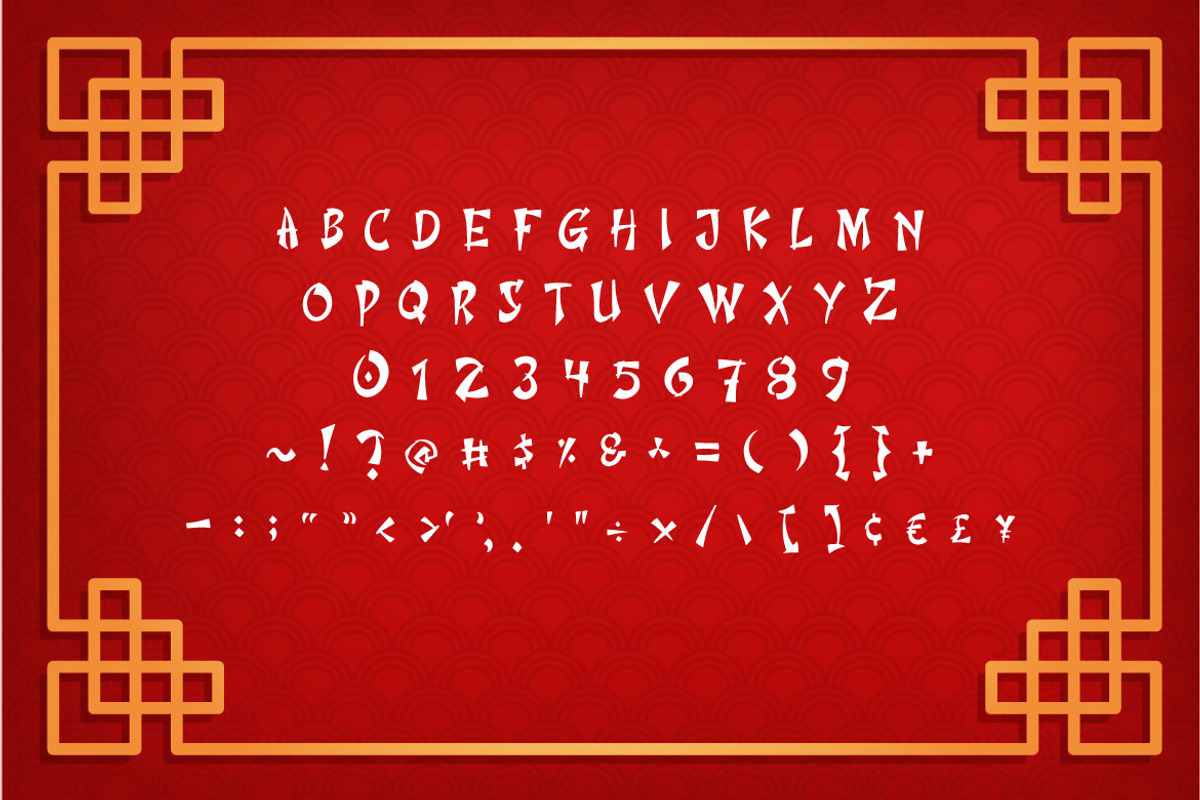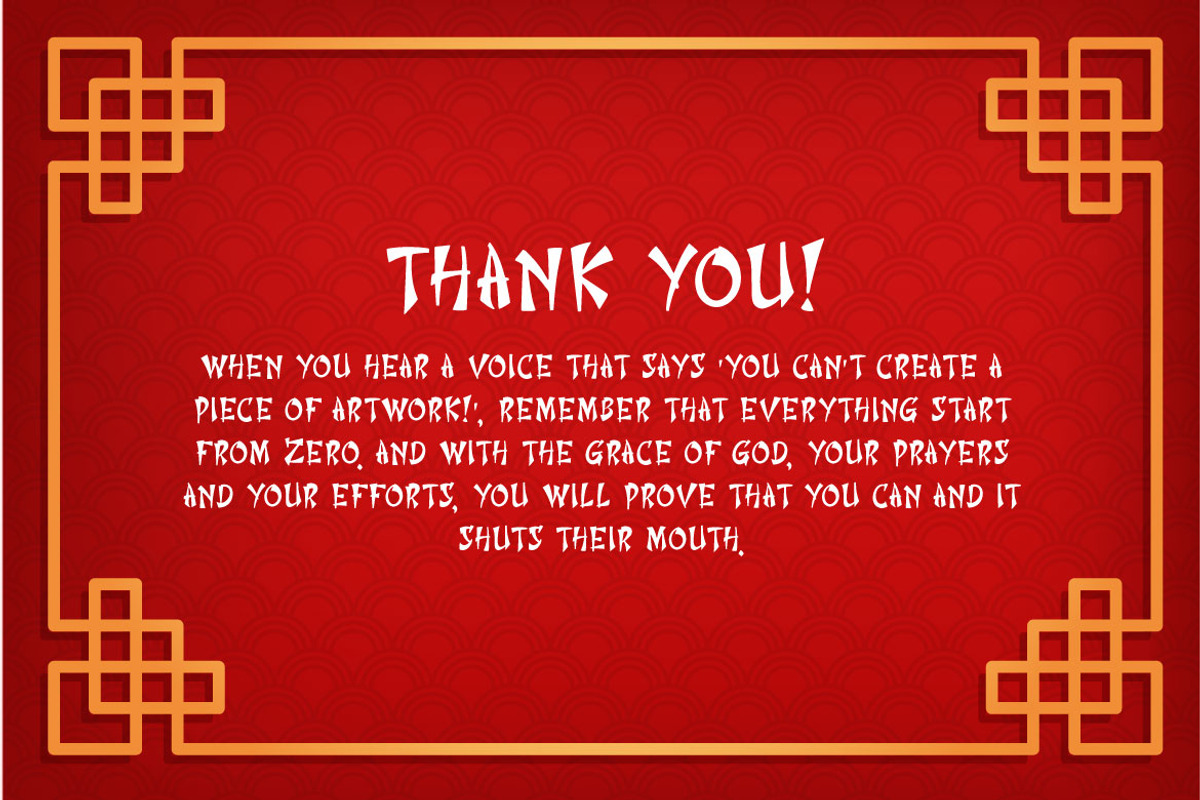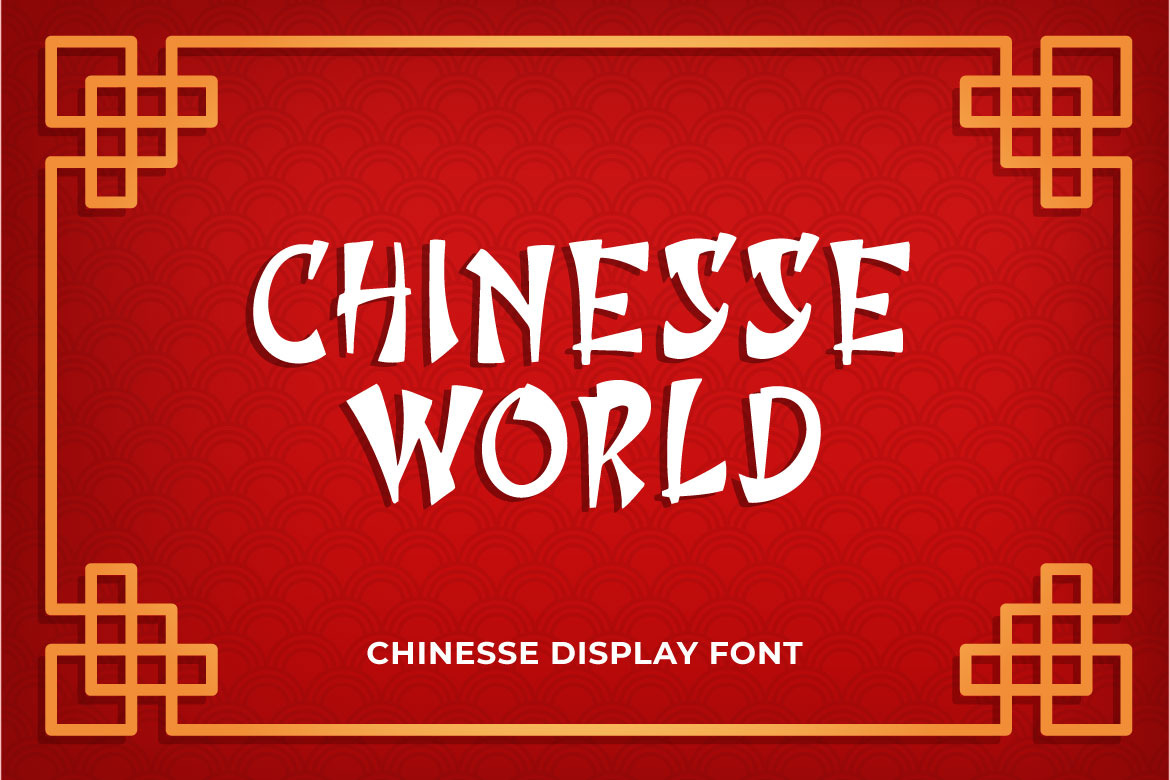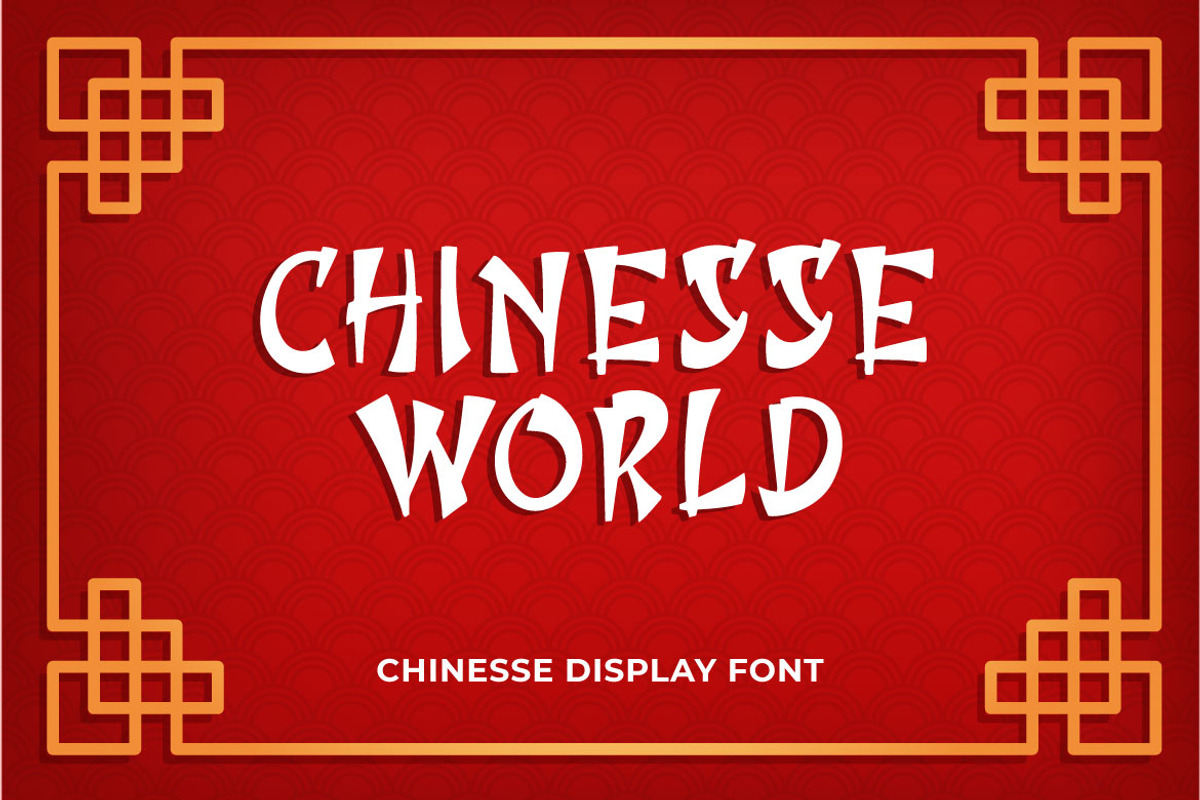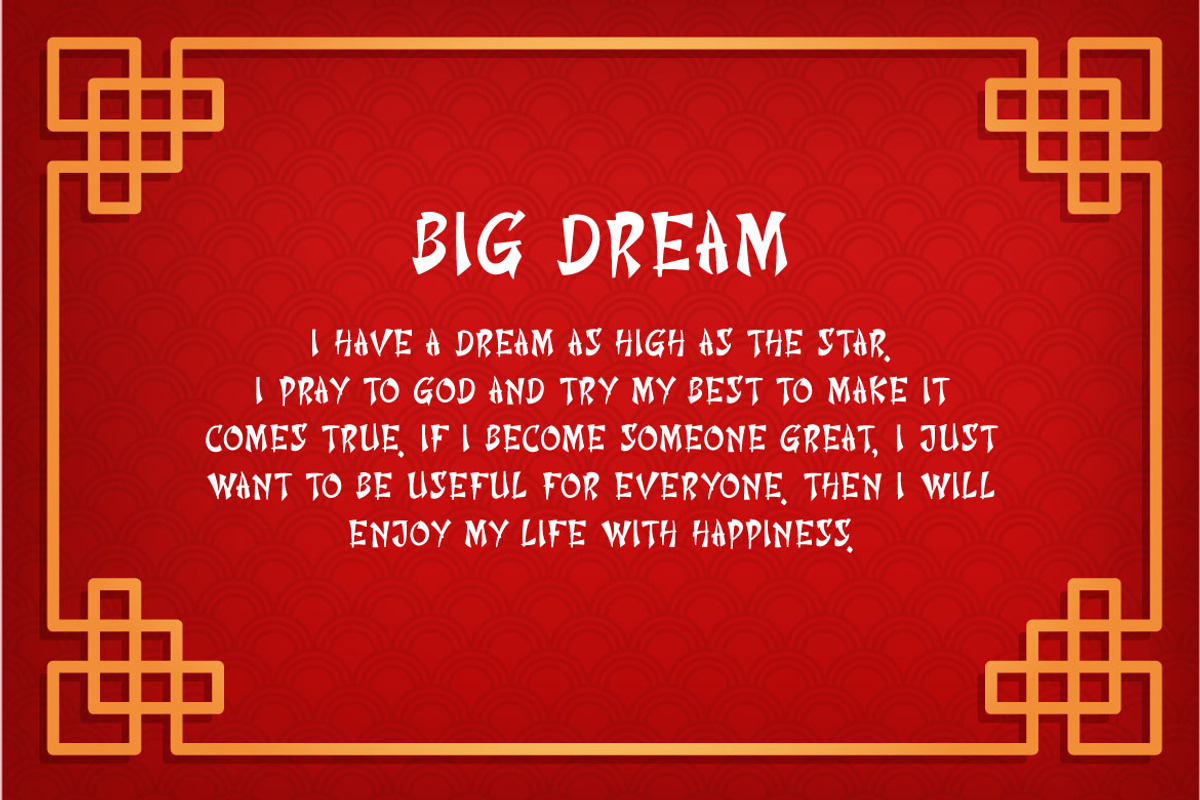
Chinesse World - Chinese Font
Hello! Chinessee World - Chinese Decorative Font is a chinese decorative font. Chinessee World can be used in any works such as flyer, book title, advertisement, social media content, logo and many more.